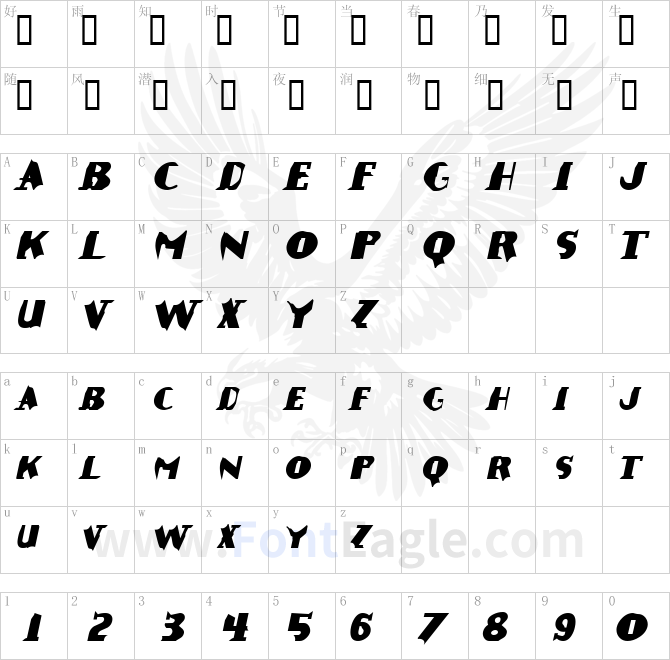
- Font name:Erosion
Erosion-Italic is a great font, widely used in graphic design, single-page menu design, poster design and other fields, and is deeply loved by designers.Erosion-Italic download.